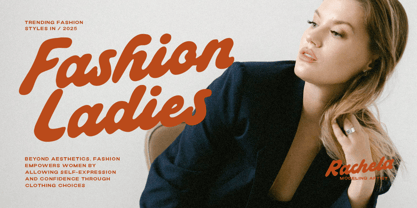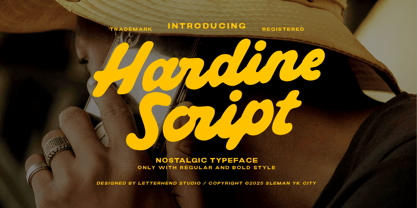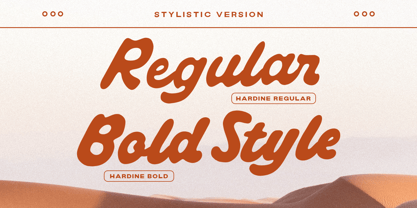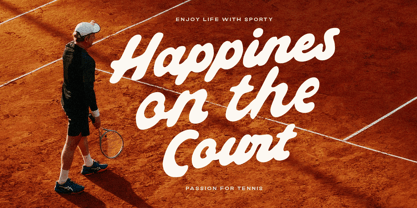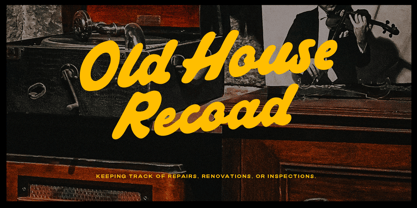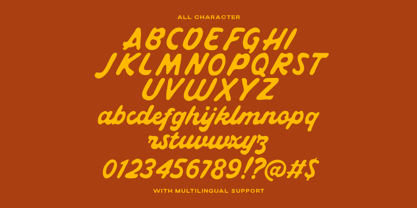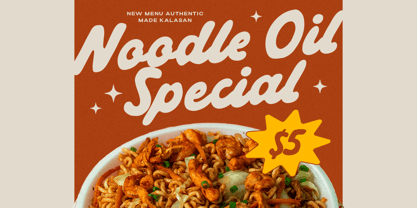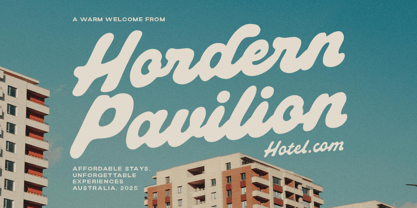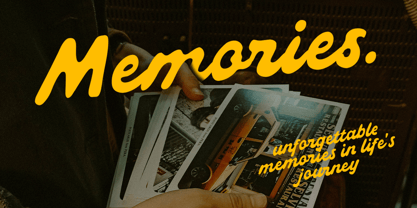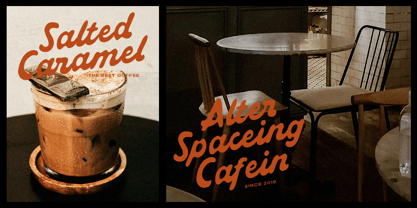
Hardine
by Letterhend
The Hardine Font Family was designed by Hendry Juanda and published by Letterhend. Hardine contains 2 styles and family package options. More about this family
Hardine Script is a bold and nostalgic typeface with a vintage charm and modern versatility, perfect for branding, posters, apparel, and retro-inspired designs. Its smooth curves and strong letterforms bring a warm, handcrafted feel while maintaining a dynamic, expressive look. Ideal for projects that need a mix of confidence and personality.
Features :
• Uppercase & lowercase
• Numbers and punctuation
• Alternates Character
• Multilingual support